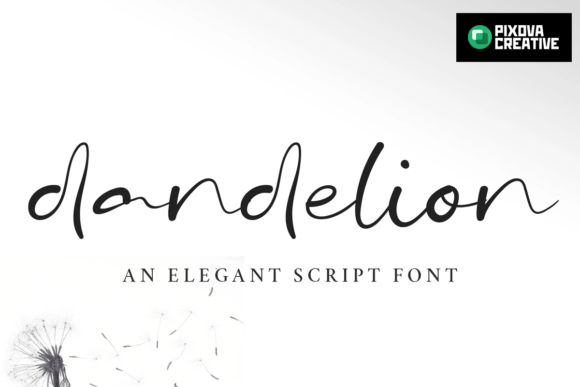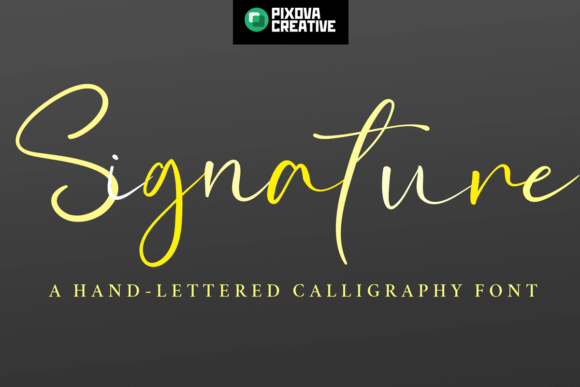
Introducing Dandelion X Signature Duo Font: Elevate Your Designs with Elegant Handwritten Charm
Have you ever been in the middle of a design project, pouring your heart and soul into every detail, only to hit a creative roadblock when it comes to choosing the perfect font? I certainly have. It was during one of those moments, working on a client’s wedding invitation project, that I stumbled upon the Dandelion X Signature Duo Font. This beautifully crafted font duo has since become a staple in my design toolkit, and I’m excited to share my experience with you.
A Personal Story of Design Struggle and Triumph
I was tasked with creating a sophisticated yet personal invitation suite for a lovely couple’s special day. The goal was to convey their love story through elegant design, but I was struggling to find a font that felt both refined and intimate. That’s when I discovered Dandelion and Signature – a stunning pair of cursive fonts that immediately captured the essence of what I was trying to achieve. Their smooth, flowing lines and delicate charm breathed life into the text, transforming it from a simple message into a beautiful narrative.
An Honest Review: The Good, the Great, and a Few Minor Quirks
So, what makes Dandelion X Signature Duo Font so special? Here are a few things I love about this font duo:
- ✨ Elegant and Versatile: Dandelion and Signature bring a level of sophistication to any project, from wedding invitations to branding materials.
- ✅ Seamless Pairing: The two fonts complement each other beautifully, allowing for a range of design possibilities.
- 💫 OpenType Features: With access to a variety of glyphs, stylistic alternates, and swashes, you can customize your text to fit your unique style.
While Dandelion X Signature Duo Font is exceptional, there are a few minor considerations to keep in mind:
- 🤔 Learning Curve: To get the most out of this font duo, especially with OpenType features, it may take some time to familiarize yourself with the various glyphs and how to access them.
- ⚠️ Legibility at Small Sizes: As with many script fonts, legibility can decrease at very small sizes. It’s best used at larger sizes where its beauty can truly shine.
The Story Behind Dandelion X Signature Duo Font
While the actual origins of Dandelion X Signature Duo Font remain a bit of a mystery, it’s clear that its creation was inspired by a desire to bring a touch of elegance and personal warmth to digital and print designs. The designer(s) aimed to craft fonts that are not just tools but storytellers – capable of conveying emotion and personality through their smooth lines and delicate features.
Q: What makes Dandelion X Signature Duo Font unique?
A: Its elegant cursive style, versatility, and extensive OpenType features make it a standout for designers looking for a personal touch.
Q: Are there any limitations to using script fonts like Dandelion and Signature?
A: While script fonts add elegance, they can be challenging to read at small sizes. It’s best to use them where their beauty can be fully appreciated.